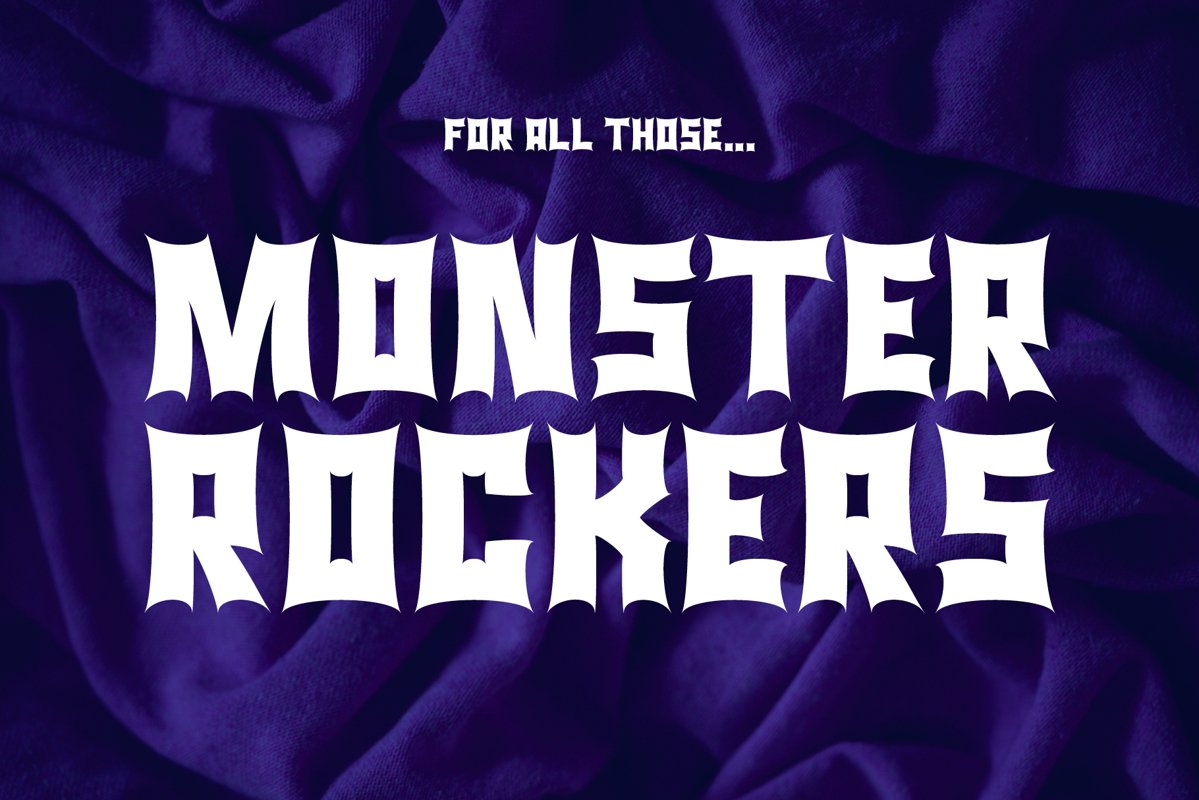
Monster Rock font - Monsta Rocka
MonstaRocka
Monsta Rocka - an awesome font for monster rock and roll display font usage.
Designed for use as a music font, a rock font or a monster font.
A sharp, spiky display font full of character. Essence of ROCK. A bit of monster too. Great for adding a spark to any graphic project you have. Perfect for T-shirts, mugs, tumblers etc. Really striking as a headline font in all capitals. Cool and unique. It's an awesome font.
Full uppercase and lowercase alphabet with numbers and special characters. Also includes the full European glyph set.
Multilingual Font
Full uppercase, lowercase and special characters. It is also multilingual and contains all standard West, Central and South Eastern European language support.